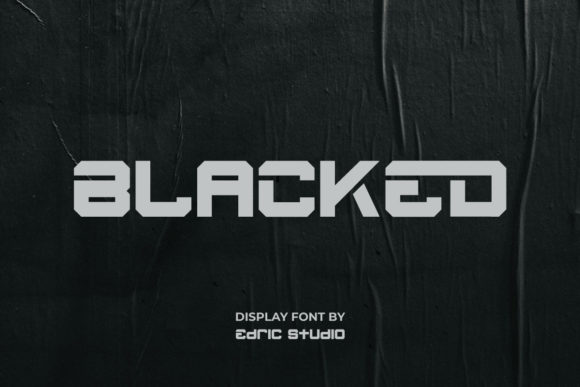
Unleash the power of Blacked, the bold and captivating display font that will elevate your designs to new heights. Crafted by the talented EdricStudio, this font exudes a modern edge that will turn heads and leave a lasting impression. Immerse yourself in a world of creative possibilities with Blacked, where your words will command attention and ignite imaginations. Blacked is not just a font; it's a statement, a testament to your impeccable taste and unwavering style. Let Blacked be your muse, inspiring you to create designs that speak volumes and convey your message with unparalleled impact.
Embrace the versatility of Blacked and adorn your web designs, business cards, and any other creation that longs for a touch of sophistication. This font is a chameleon, effortlessly adapting to your vision and enhancing every element it graces. Whether you seek a bold headline that demands attention or an elegant body text that captivates, Blacked is the perfect choice.
Each letterform in Blacked is a masterpiece, meticulously crafted to evoke emotion and convey your message with unparalleled clarity. The sharp angles and striking lines exude confidence and determination, while the smooth curves add a touch of grace and elegance. Together, they create a visual symphony that will resonate with your audience and leave an indelible mark.
Indulge in the limitless possibilities that Blacked offers. Let your creativity soar as you explore the countless ways to incorporate this exceptional font into your designs. With Blacked, you possess the power to transform ordinary into extraordinary, to captivate, and to inspire. Embrace the allure of Blacked and unlock the true potential of your creations.